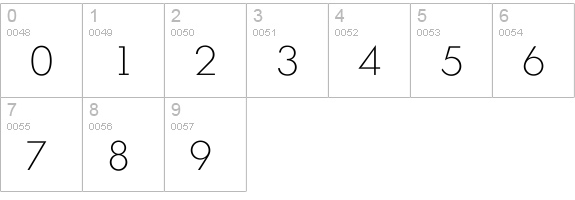
Limeri Xlight Font Details
Limeri Xlight font is an elegant and modern typeface that exudes sophistication and style. Its sleek and slender letterforms make it perfect for adding a touch of sophistication to any design project. The light weight of the font gives it a delicate and airy appearance, making it ideal for use in headings, logos, and other display purposes. One of the best things about Limeri Xlight font is that it is completely free to download. You can easily access this stunning font at FontsMarket.com, where you can explore a wide range of high-quality fonts for all your design needs. Don't miss out on the opportunity to enhance your projects with the beauty and versatility of Limeri Xlight font – download it today and let your creativity shine!